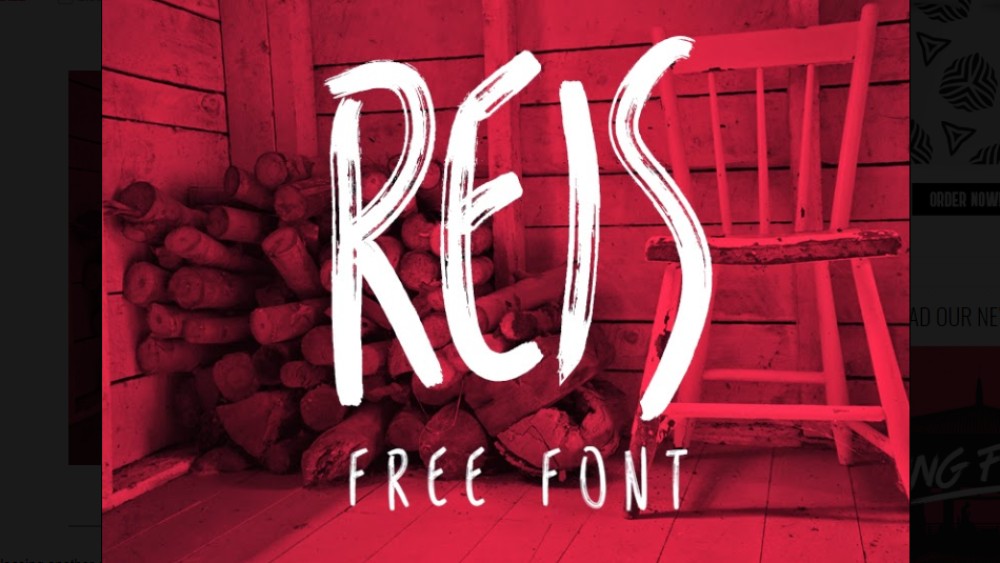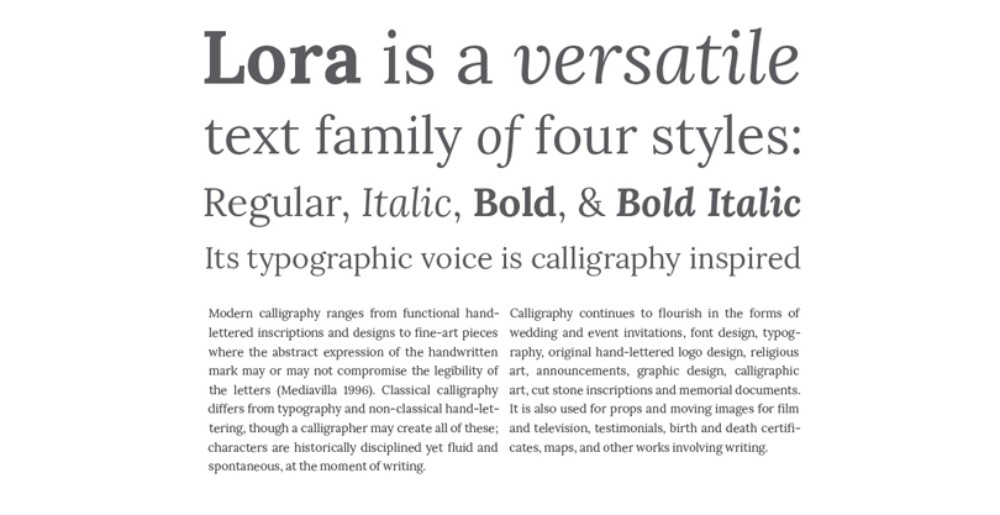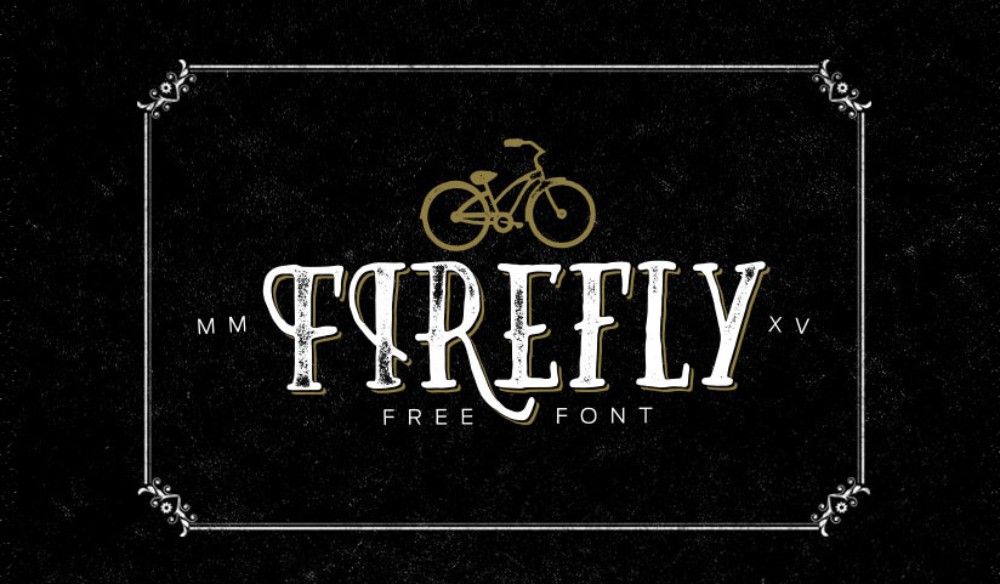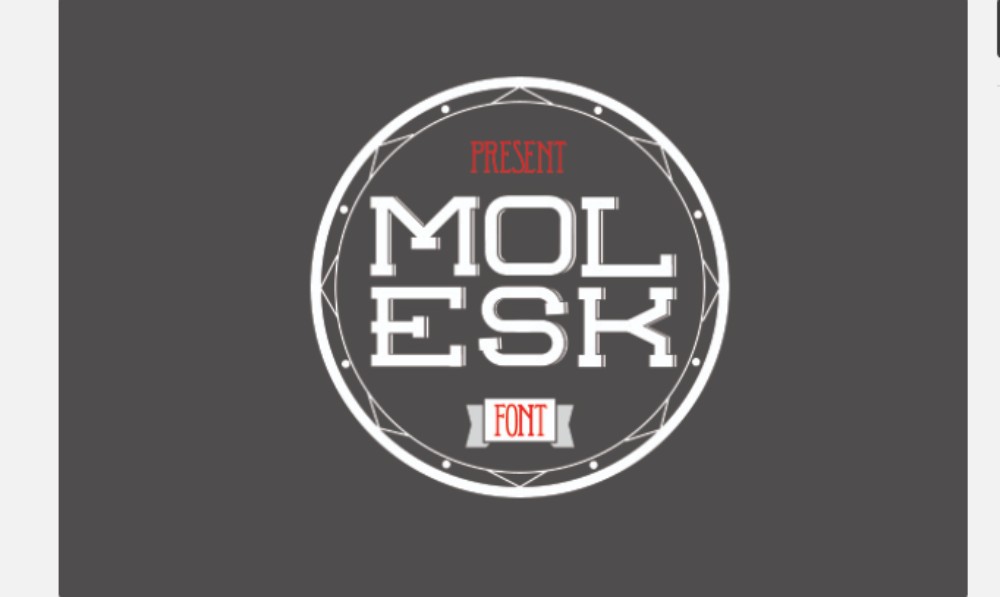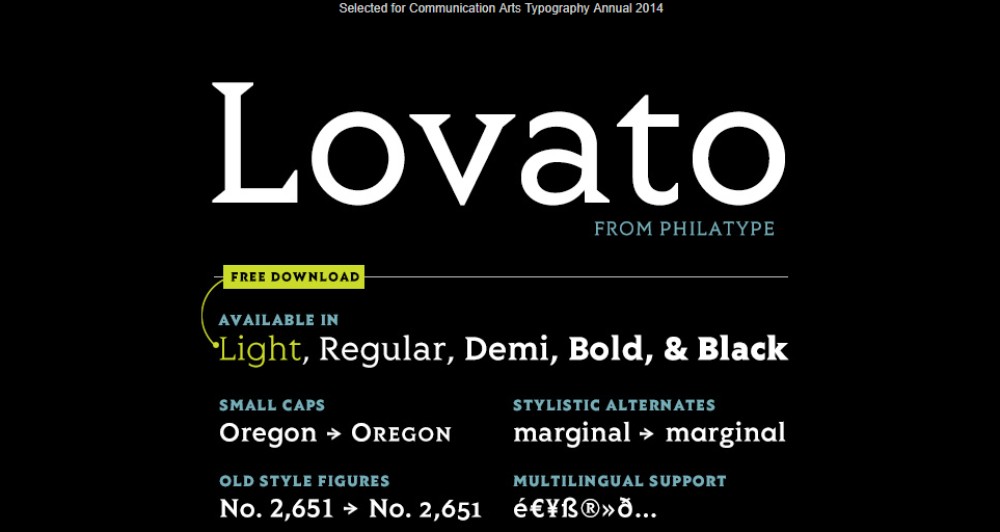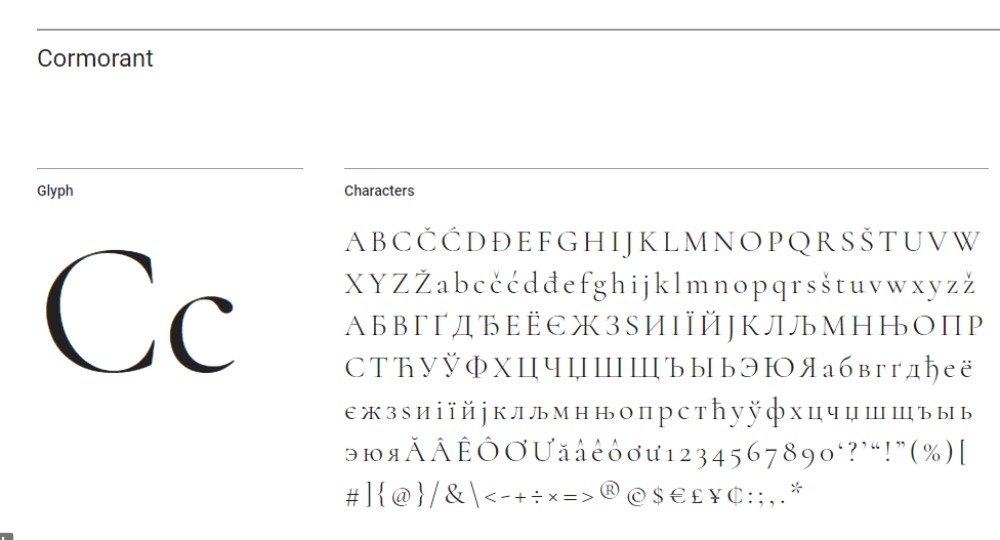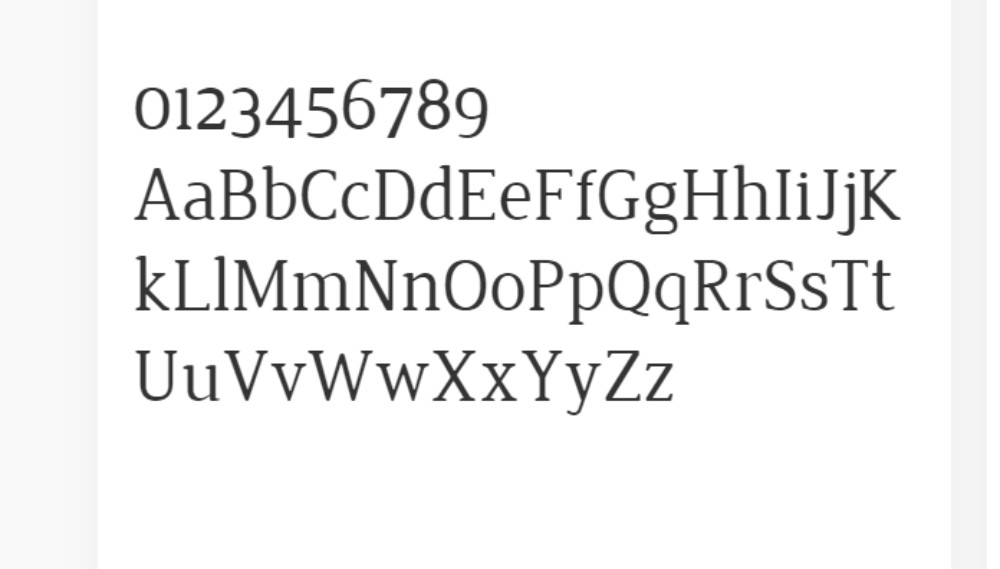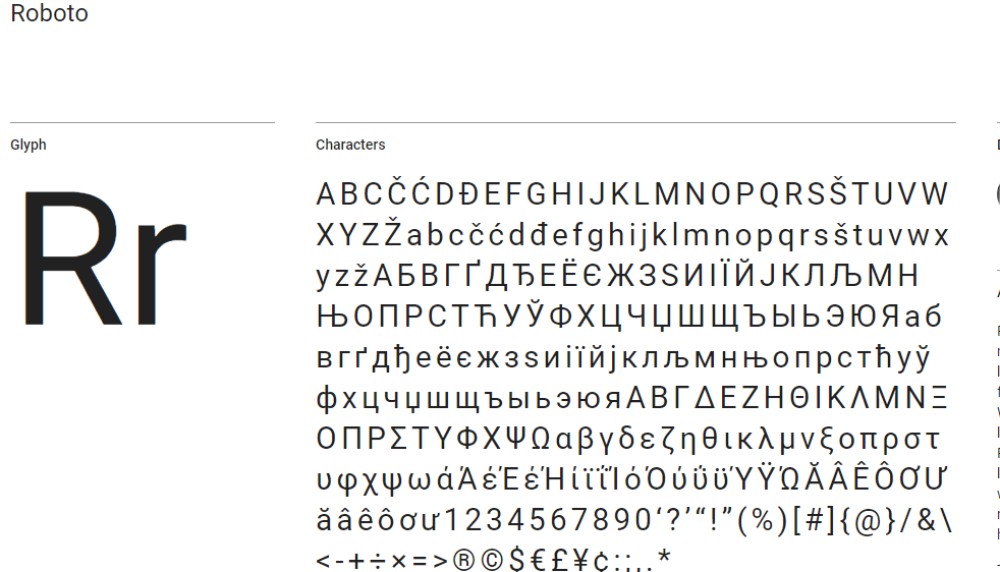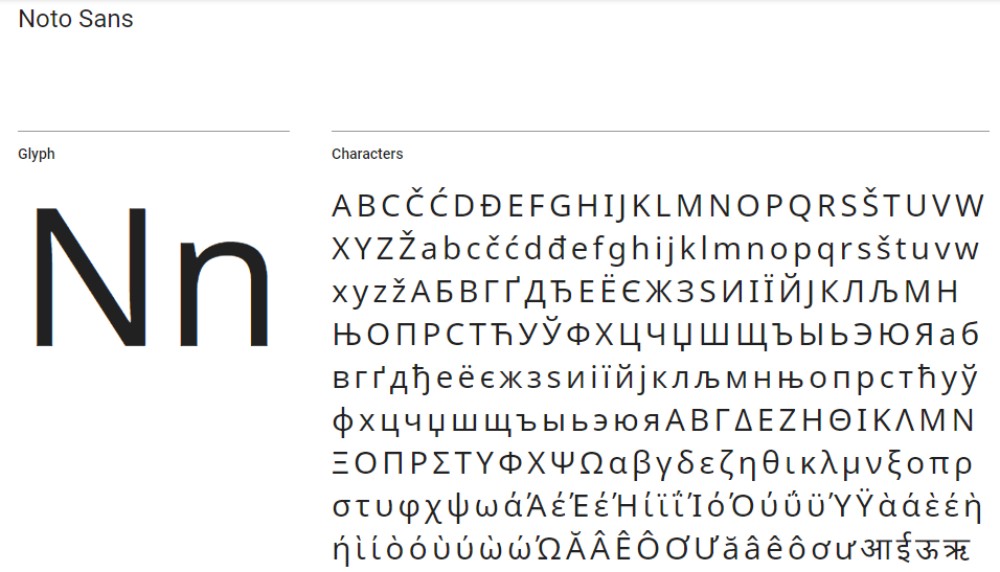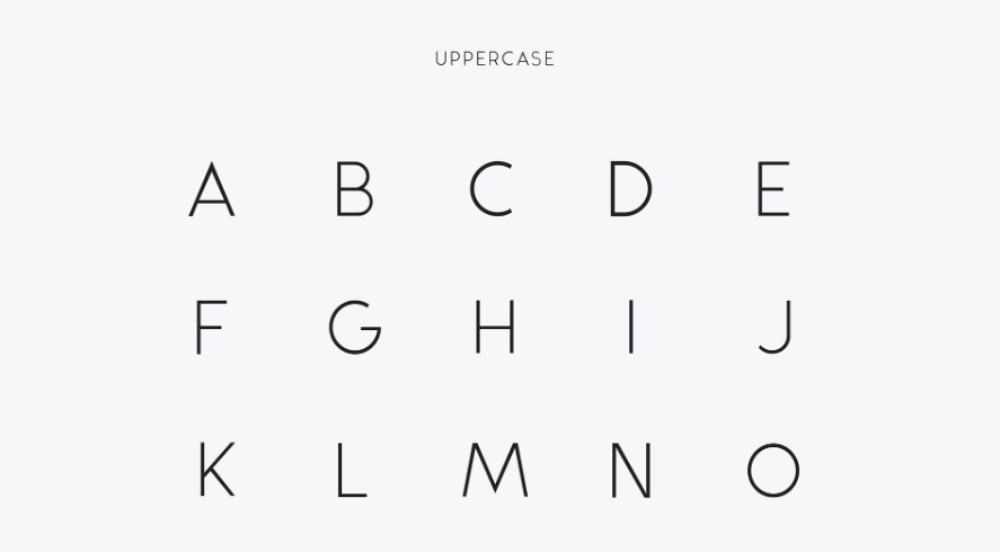
The Best Free Fonts to Use on Your Website
In the tapestry of web design, typography is the thread that weaves functionality with aesthetics. The best free fonts stand as the unsung heroes, silently shaping user experience.
This craft transcends mere alphabets; it's about invoking emotion and ensuring clarity. How does one navigate the plethora of typefaces available without a hit to the wallet?
Dive into a curated collection of high-quality free fonts optimized for legibility, performance, and personality—vital in creating memorable digital landscapes.
Understanding the intersection of typography and user interface design principles unveils the potent influence fonts wield in user engagement and brand identity.
By conversing with pixels and code, these fonts harmonize with responsive design and leap beyond the constraints of varied screen sizes. From the artistry of Font Squirrel to the versatility found in Google Fonts, this exploration details the treasures in the font universe.
We have divided the cool fonts that we are about to talk today into three major categories; serif fonts, sans serif fonts, and handwritten fonts. All fonts that are mentioned below are entirely free of charge.
Best Free Serif Fonts
Coldiac
Coldiac is a luxurious serif font that works well for all kinds of texts; from headlines and a small amount of body text to printed ads and other marketing materials. According to the Coldiac creators, what really makes this font special is "the relatively low contrast of strokes, the slightly squarish shapes of round characters and the emphasized businesslike nature.”
Kilauea
This is not the typeface you would typically use for the body text, but it works great for headlines as well as posters. This free font is all-caps, and the detail within the letters gives the font sort of a soft 3D effect.
Blacker
If you are looking for something a little bit more unique, Blacker is the right serif font for you. According to the Blacker designers’ page, this cool font is "take on the contemporary 'evil serif' genre: typefaces with high contrast, 1970s-evoking proportions, and sharp wedge serifs".
Fakedes
Designed by Cyril Mikhailov, Fakedes is a rounded serif font with double lines. It is one of the modern fonts perfect for headings.
Forum
Designed by Denis Masharov and inspired by the classic Roman fonts, Forum is one of the best fonts for headings, but it can also be used on paragraphs.
Muchacho
Designed by Jeff Schreiber, Muchacho is an all-caps font with a quirky twist that can be used for headings on modern websites.
Poly
Poly is one of the free medium contrast serif fonts that are not only gorgeous but also easily readable. It was designed by Nicolás Silva who made sure this typeface was as clear and readable as possible which makes it perfect for web sure.
Bitter
Available through Argentinian type collaborative Huerta Tipográfica, Bitter is one of the free modern fonts that was specifically designed for reading the text on the screen. It combines generous x-heights with minimal variation in stroke weight which makes it perfect for the web use.
Playfair Display
Playfair Display takes inspiration from the late 18th century European Enlightenment and the work of type designer John Baskerville. If you take a closer look at the letters, you will notice the delicate hairlines resembling those that a pointed steel pen leaves on paper.
Lora
Initially designed for type foundry Cyreal in 2011, Lora is a free font that has its roots in calligraphy. The Cyrillic extension was added in 2013. Nowadays, you can get Lora in four styles: regular, bold, italic, and bold italic.
Lora is optimized for the web use, but it also looks beautiful in print projects and different marketing materials thanks to its well-balanced, contemporary feel.
Butler
Speaking of nice fonts, we have to mention Butler, a free font designed by Fabian De Smet and inspired by both Dala Floda and the Bodoni family. This is a serif font with a modern twist.
The Butler family contains 334 characters, seven regular weights, and seven stencil weights, and includes text figures, ligatures and fractions. With the added glyphs, it suits numerous languages as well as different text types.
Arvo
Arvo is a geometric slab-serif font family. It works equally well for the print and screen use. It was created by Anton Koovit and published in the Google Font directory as a free open font (OFL). Once you complete the font download, you are all set to start using it and you can choose standard, italic, bold and bold italic style.